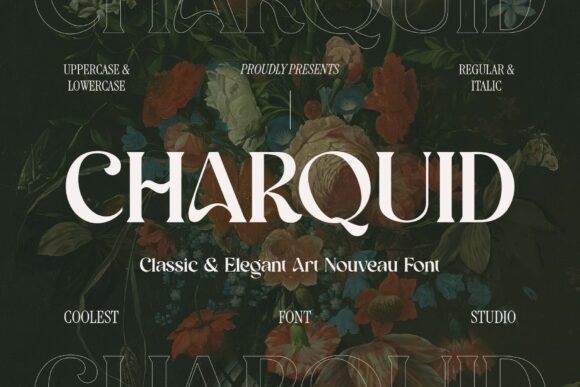
Immerse Your Designs in Timeless Elegance with Charquid Font
In the realm of typography, few fonts manage to capture the essence of timeless elegance and sophistication as effectively as Charquid. This classic Art Nouveau-inspired typeface is meticulously crafted to bring a touch of vintage refinement to any design project. With its subtle curves, distinct contrasts, and versatile design, Charquid is poised to become the go-to font for designers seeking to elevate their creations.
The Art Nouveau Inspiration
Charquid draws its inspiration from the Art Nouveau movement, which emerged in the late 19th and early 20th centuries. Characterized by its use of sinuous, organic lines and a sense of dynamism, Art Nouveau influenced various art forms, including architecture, decorative arts, and typography. Charquid’s design embodies the spirit of this movement, with its elegant curves and refined lines evoking a sense of luxury and sophistication.
Key Features of Charquid Font
- Classic Serif Design: Charquid boasts a traditional serif design, complete with subtle curves and distinctive contrasts that lend an air of elegance to any text.
- Versatile Styles: The font comes in both regular and italic styles, providing designers with flexibility and versatility for various design applications.
- Extensive Character Set: Charquid features an extensive array of uppercase and lowercase characters, ensuring that designers have access to a wide range of typographic options.
- Multilingual Support: The package includes comprehensive multilingual support, making Charquid suitable for designs intended for global audiences.
Applications of Charquid Font
Charquid’s versatility and elegance make it an ideal choice for a variety of design applications. Some of the most notable uses of this font include:
Branding and Logo Design
In the world of branding, establishing a strong visual identity is crucial. Charquid’s sophisticated charm and timeless elegance make it an excellent choice for brands looking to convey luxury, refinement, and tradition. Whether you’re designing a logo for a high-end fashion brand, a boutique hotel, or a gourmet food company, Charquid can help you create a lasting impression.
Invitations and Event Design
Charquid is also well-suited for designing invitations, wedding suites, and other event materials. Its romantic, vintage aesthetic adds a touch of elegance and sophistication to any design, making it perfect for formal events, weddings, and galas.
Packaging Design
When it comes to packaging design, Charquid’s classic serif design and elegant lines can help your product stand out on store shelves. Whether you’re designing packaging for a luxury food item, a high-end cosmetic product, or a premium beverage, Charquid can add a touch of sophistication and refinement.
Editorial and Publishing
Charquid’s readability and elegance make it an excellent choice for editorial and publishing projects, such as magazines, books, and newspapers. Its classic design ensures that your content is presented in a clear and sophisticated manner, engaging readers and enhancing their reading experience.
Why Choose Charquid Font?
With so many fonts available, why should you choose Charquid for your design projects? Here are a few compelling reasons:
Timeless Elegance
Charquid’s classic design ensures that your designs will remain timeless and elegant, even as trends come and go. Its Art Nouveau inspiration adds a touch of sophistication and refinement, making it perfect for designs that require a sense of luxury and tradition.
Versatility
Charquid’s versatility makes it suitable for a wide range of design applications, from branding and logo design to invitations, packaging, and editorial projects. Its regular and italic styles, combined with its extensive character set, provide designers with the flexibility they need to create stunning designs.
Multilingual Support
In today’s globalized world, multilingual support is essential for designers who work with international clients or create content for global audiences. Charquid’s comprehensive multilingual support ensures that you can use this font for designs intended for readers around the world.
Charquid is a classic Art Nouveau-inspired typeface that brings a touch of timeless elegance and sophistication to any design project. Its versatile design, extensive character set, and multilingual support make it an ideal choice for a wide range of applications, from branding and logo design to invitations, packaging, and editorial creations. With Charquid, you can elevate the aesthetic of your designs and create stunning, sophisticated works that engage and inspire your audience.